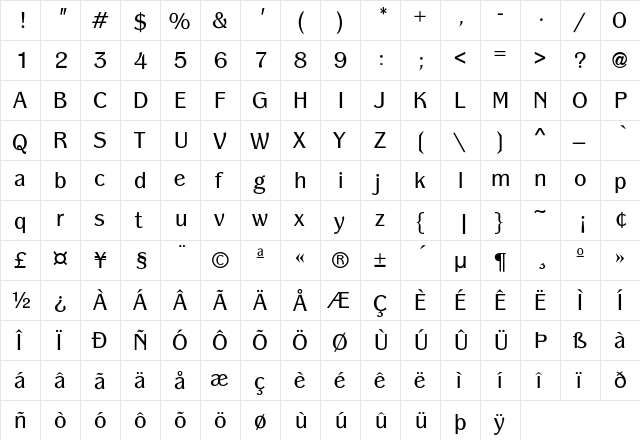
Panache-Book Regular
Design Context for Panache-Book Typeface
Panache-Book takes a measured approach to typography — its balanced proportions and neutral character make it a reliable workhorse for both digital and print work.